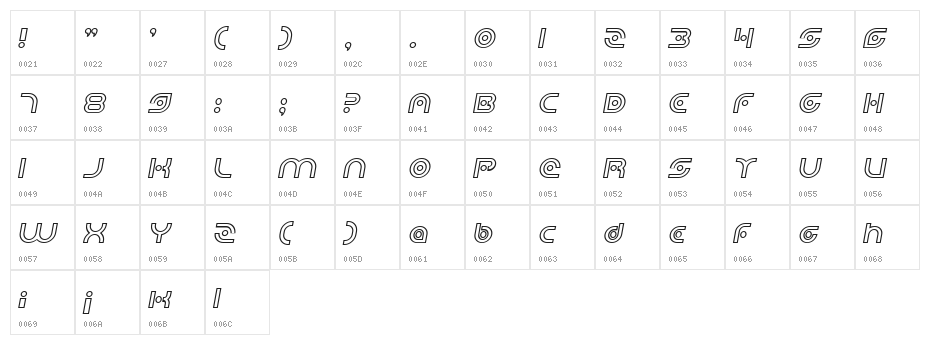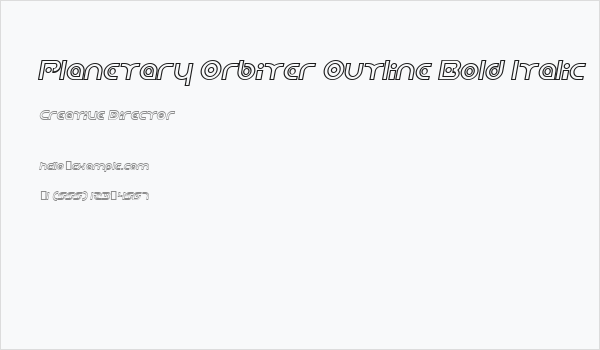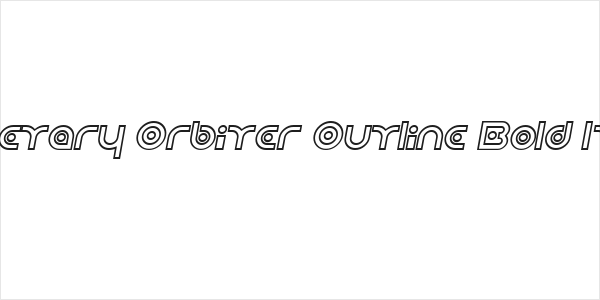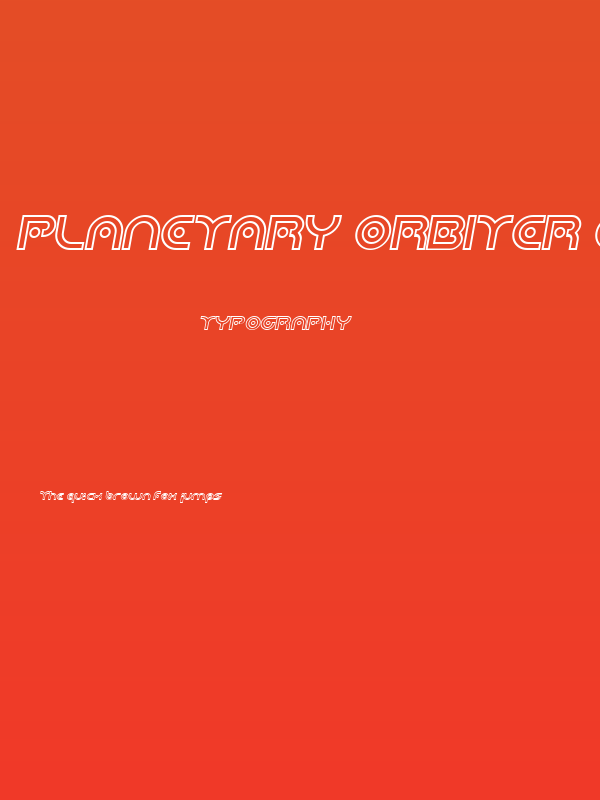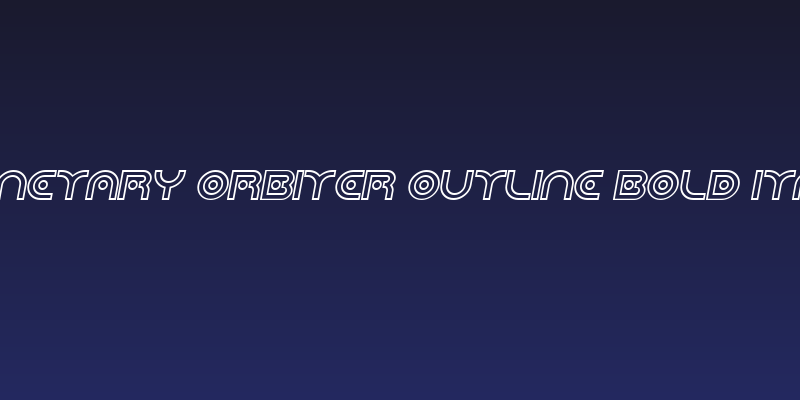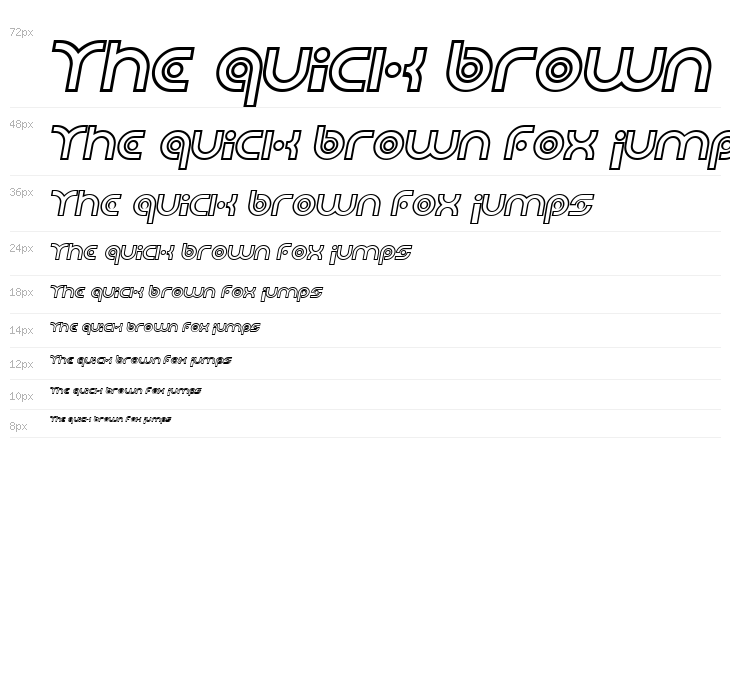
Planetary Orbiter Outline Bold Italic Font
Planetary Orbiter Outline Bold Italic Description
This font features a futuristic and geometric design with an outline style that gives it a unique, space-age appearance. The characters are bold and italicized, with smooth curves and sharp angles that create a dynamic flow. The uppercase and lowercase letters maintain a consistent style, with the lowercase mirroring the uppercase in form. Numbers and special characters are designed to match the overall aesthetic, ensuring uniformity across all glyphs. The font's outline nature allows for creative use of color and layering, making it versatile for various design applications.
| Proposed Projects | Ideal for sci-fi themed projects, tech branding, futuristic posters, and digital artwork. |